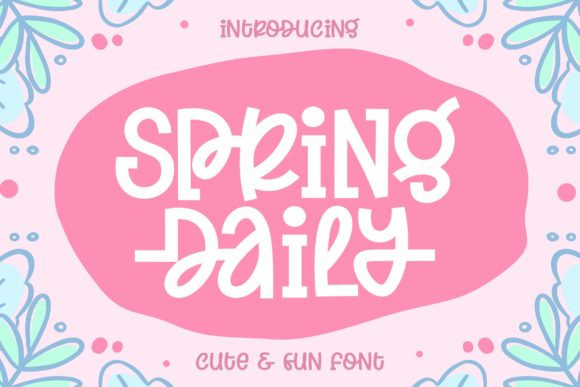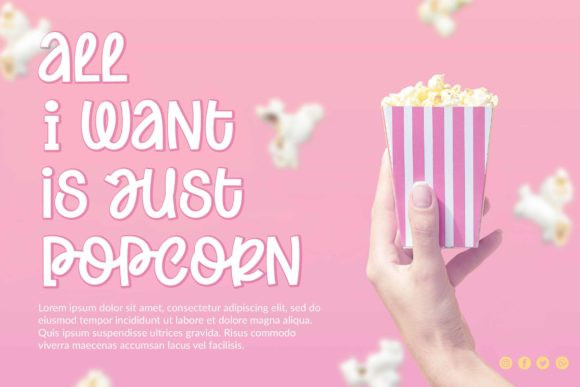
Spring Daily Font
Spring Daily is a cute and casual display font with an incredibly friendly feel. Whether you’re looking for fonts for Instagram or calligraphy scripts for DIY projects, this font will turn any creative idea into a true piece of art!